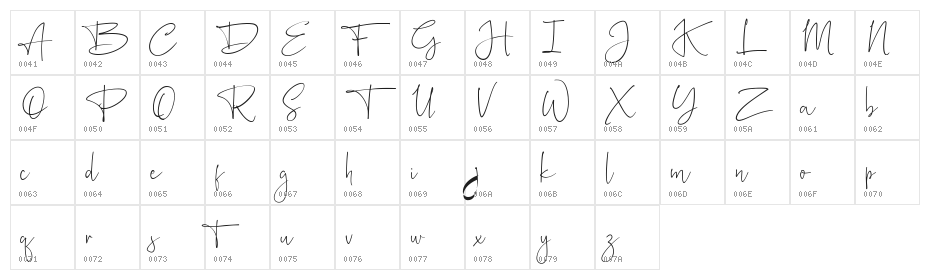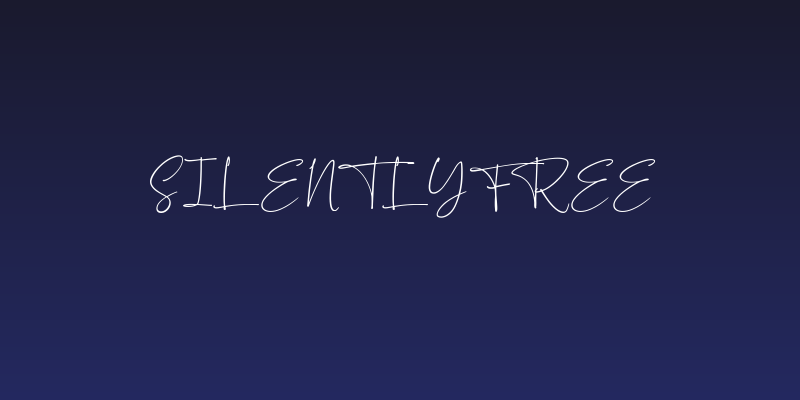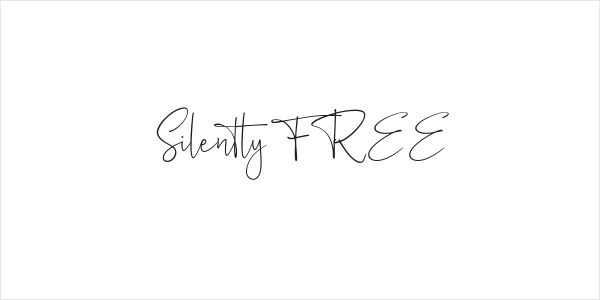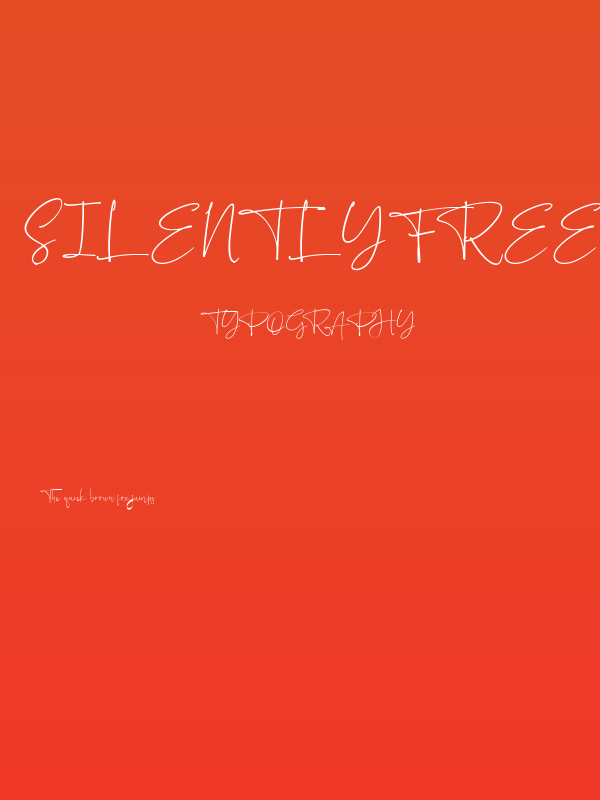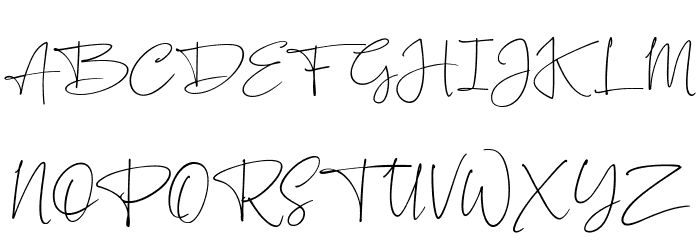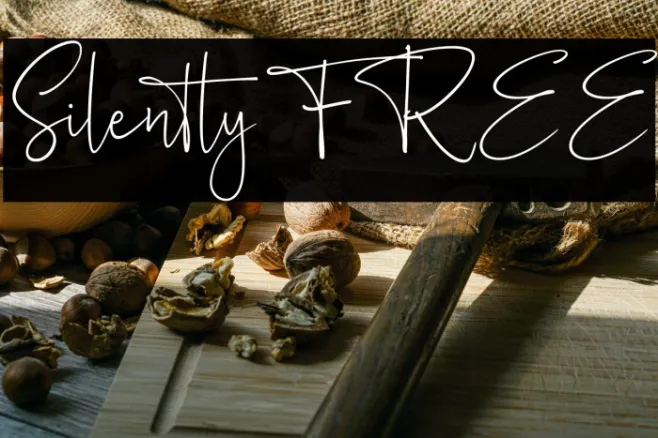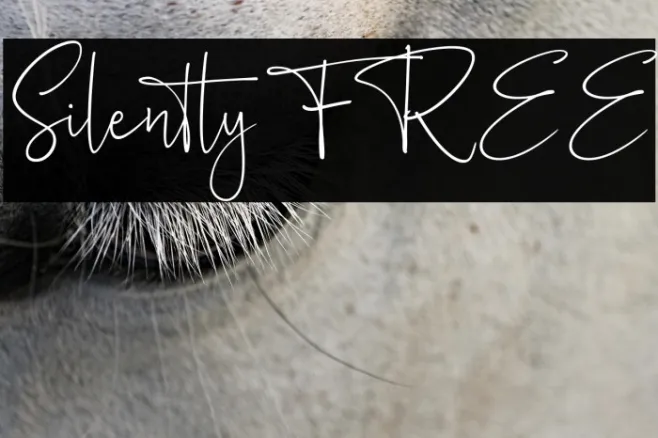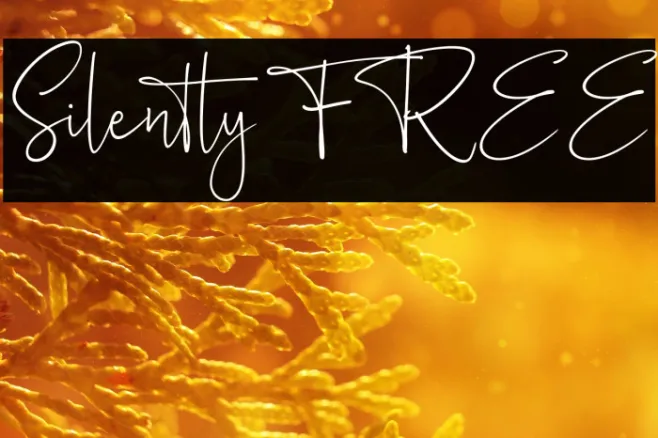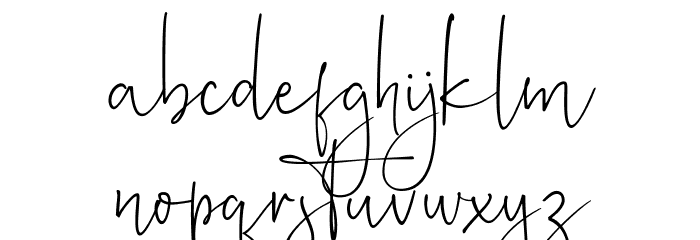
Silently FREE Font
Silently FREE Description
This font features an elegant and flowing script style, characterized by its thin, delicate strokes and graceful curves. The uppercase letters are tall and slightly elongated, while the lowercase letters maintain a consistent height with a smooth, cursive flow. The font exhibits a hand-drawn quality, giving it a personal and artistic touch. The characters are connected in a fluid manner, enhancing the overall aesthetic appeal. The spacing between letters is moderate, allowing for readability while maintaining the script's decorative nature. This font is ideal for projects that require a touch of sophistication and elegance.